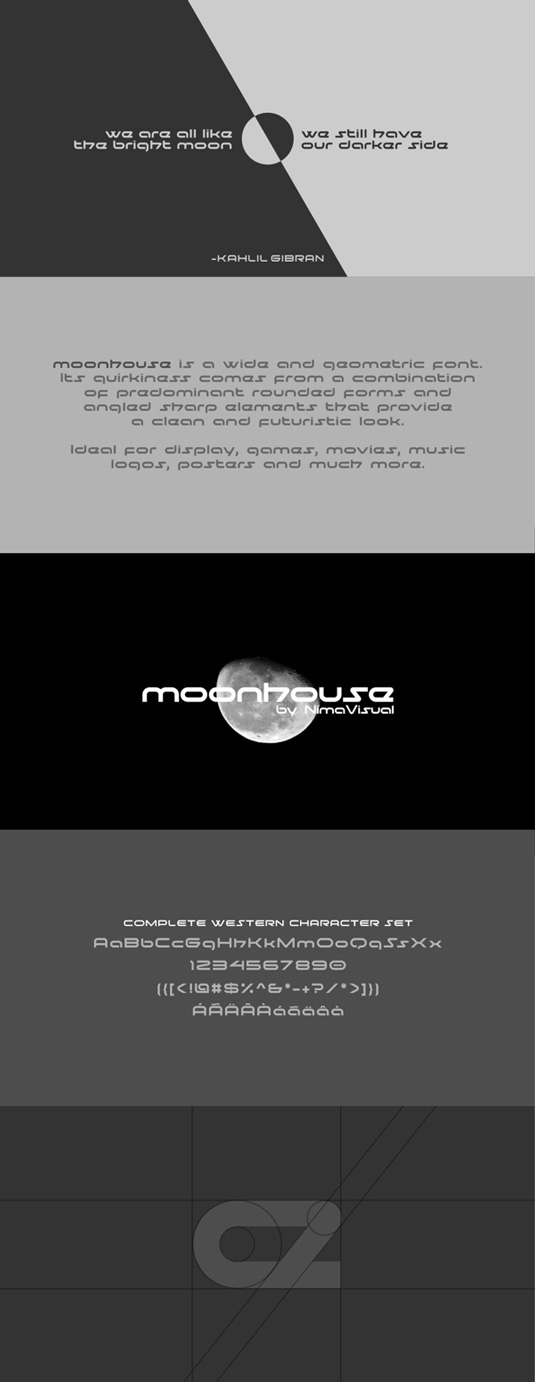
Font of the day: Moonhouse
Moonhouse by NimaVisual
Colombian graphic design studio NimaVisual created today's font of choice, Moonhouse. The team comment on the design: "Moonhouse is a wide and geometric font. Its quirkiness comes from a combination of predominant rounded forms and angled sharp elements that provide a clean and futuristic look. Ideal for display, games, movies, music, logos, posters and much more."